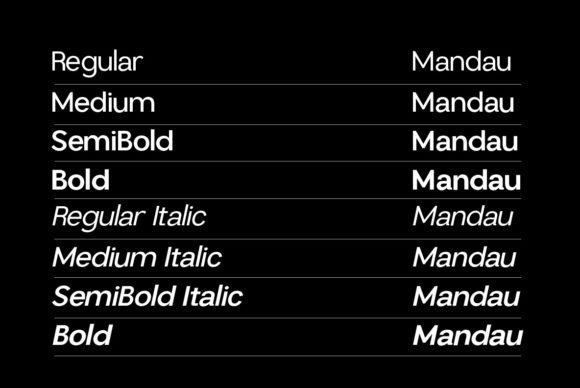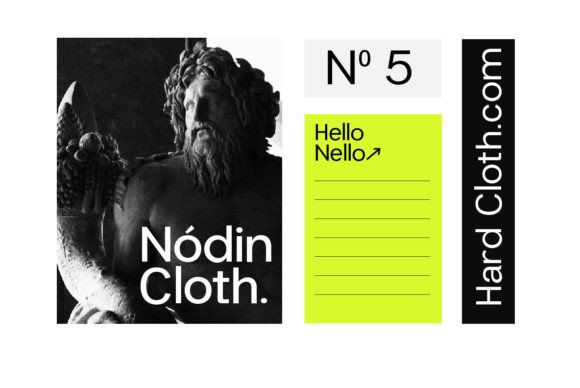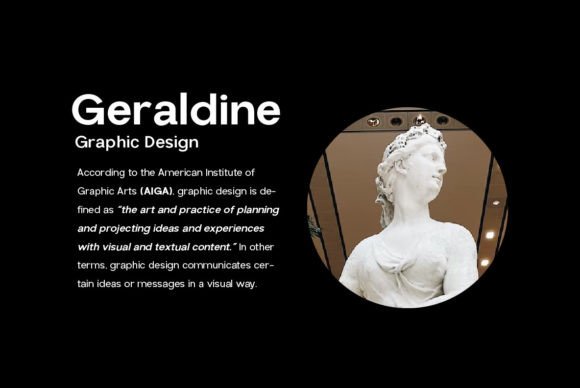
Introduction to Mandau Font
Mandau is a cool and modern sans serif font that boasts a stylish and contemporary design.
Its clean and geometric letters feature sharp edges and subtle curves, giving it a unique and sophisticated appearance This font is perfect for creating a range of projects, from branding and web design to editorial and advertising projects.
Key Features of Mandau Font
Why Choose Mandau Font?